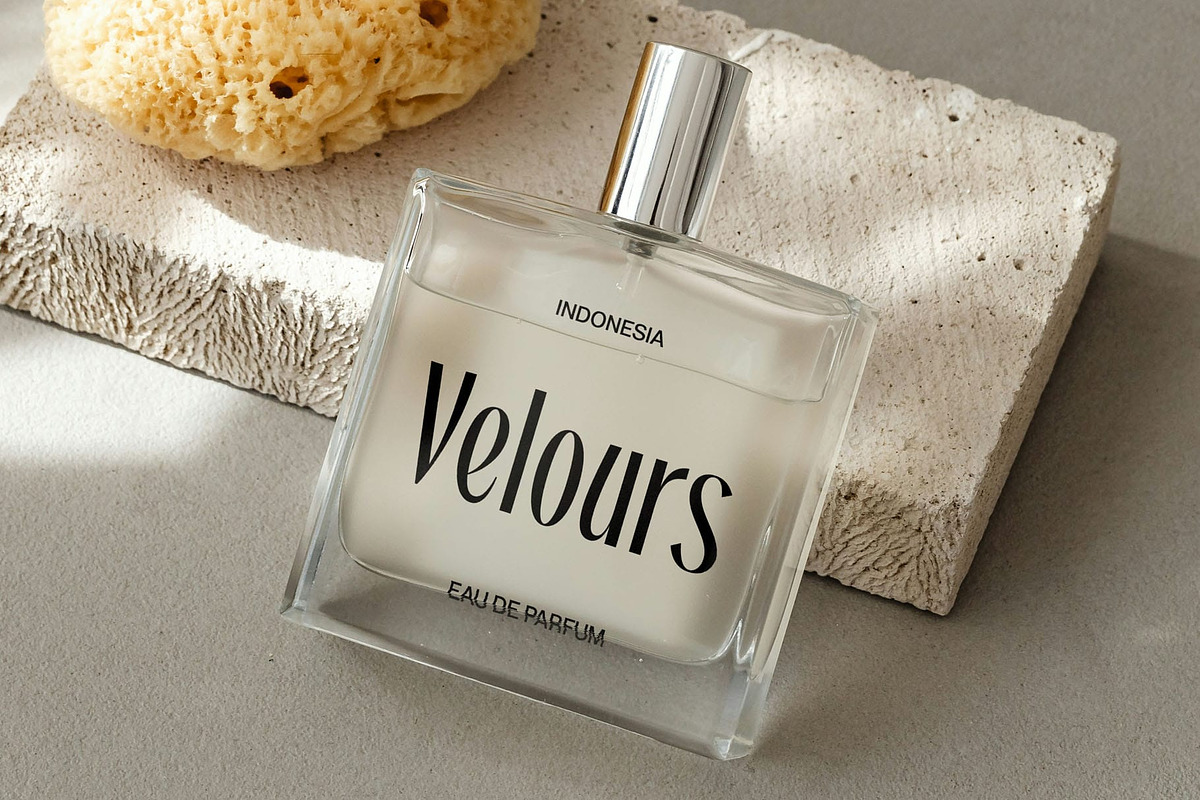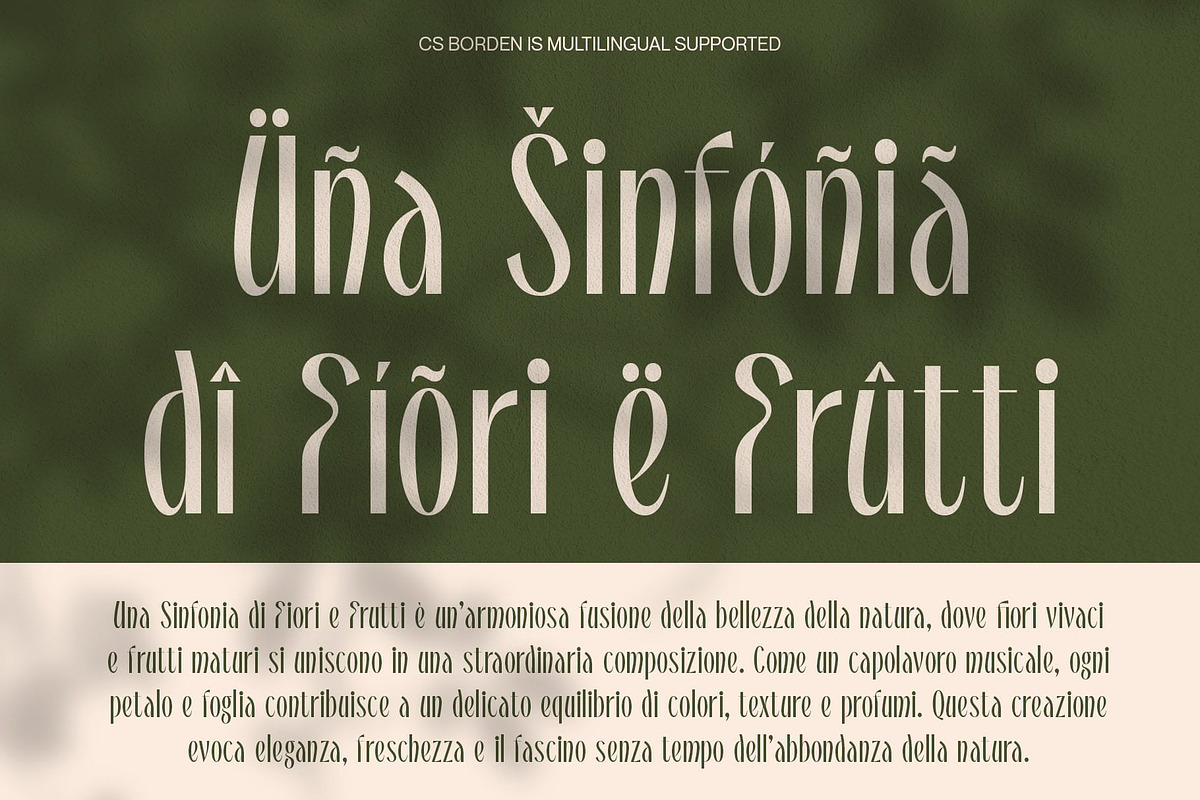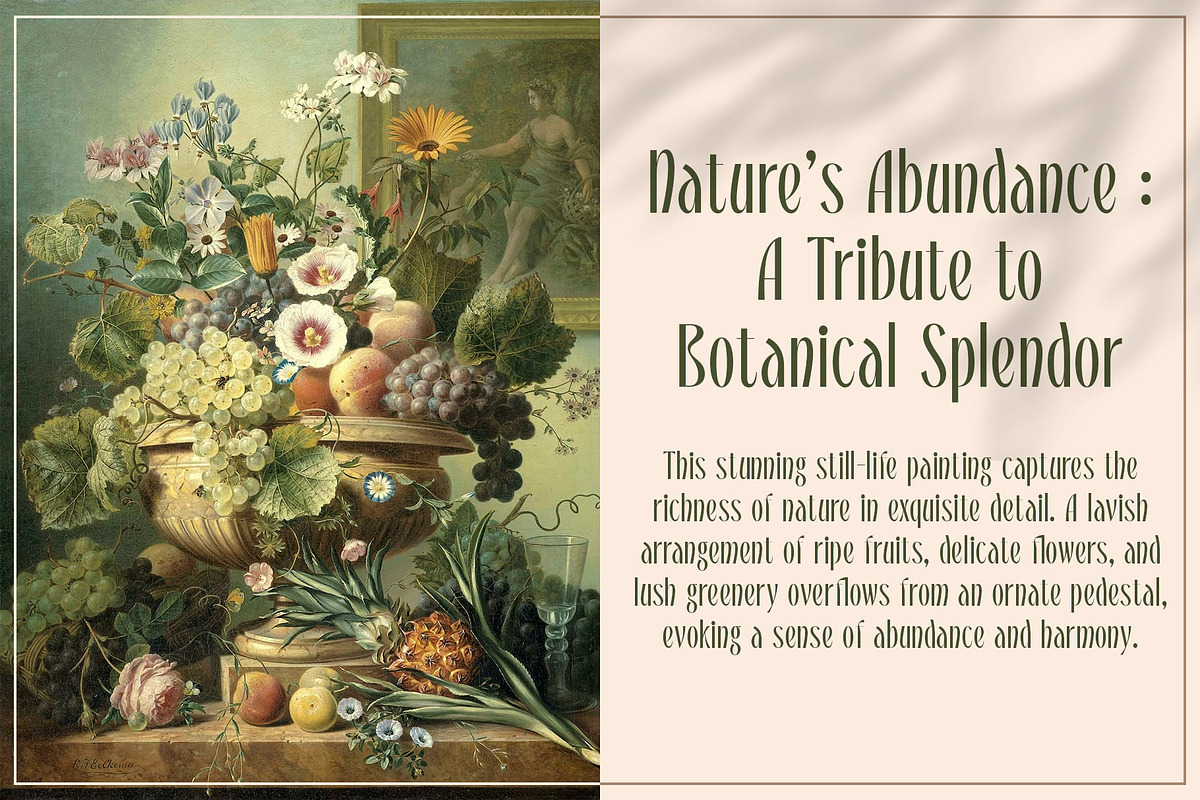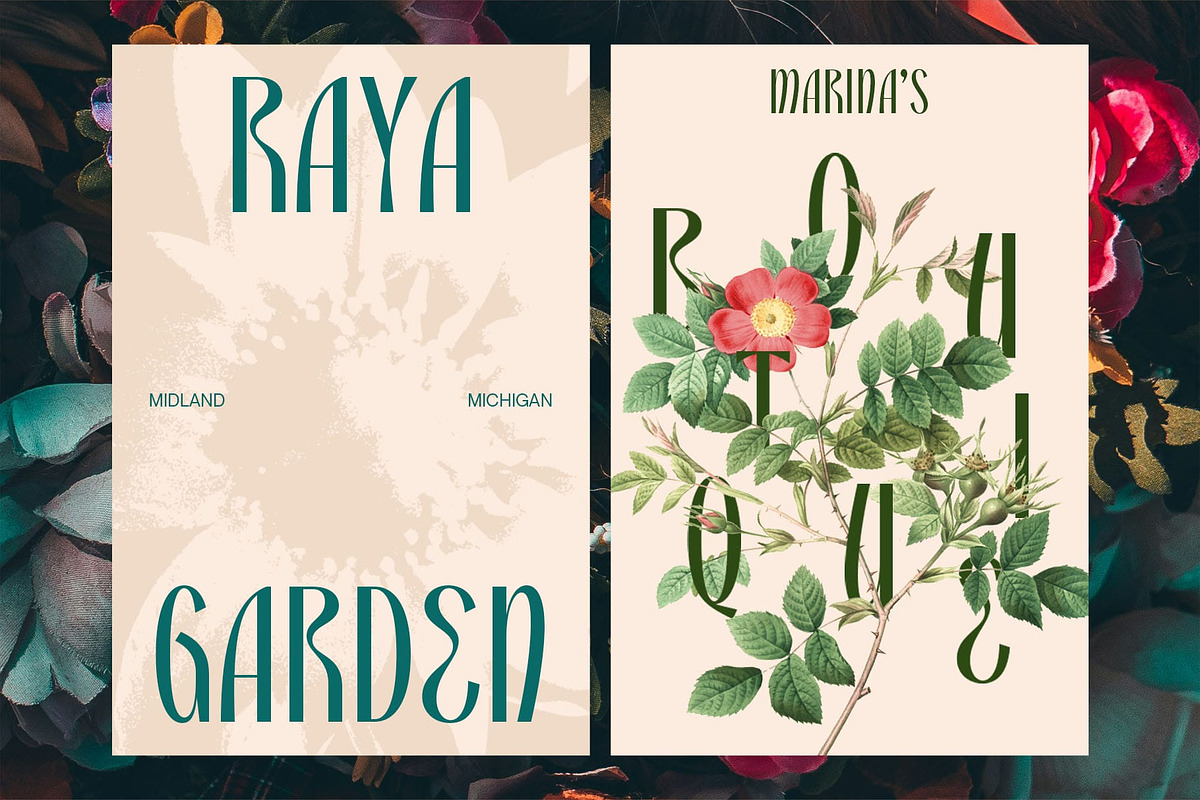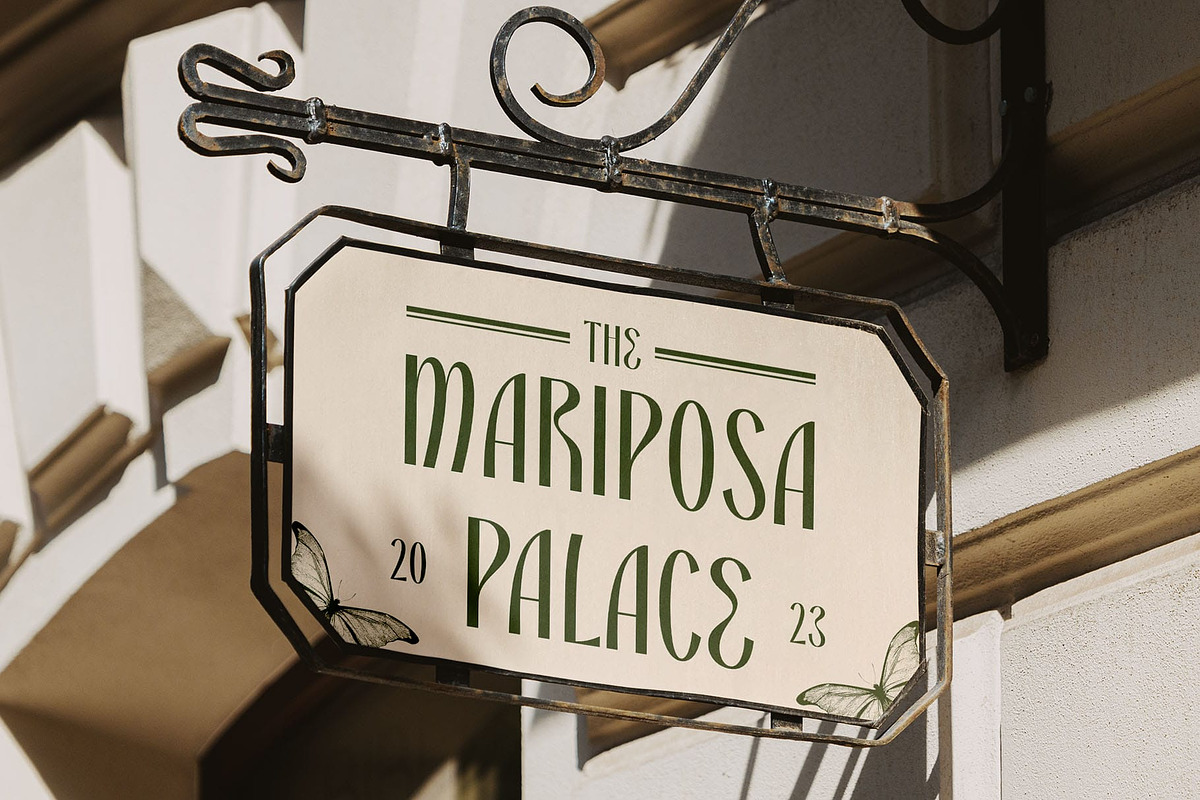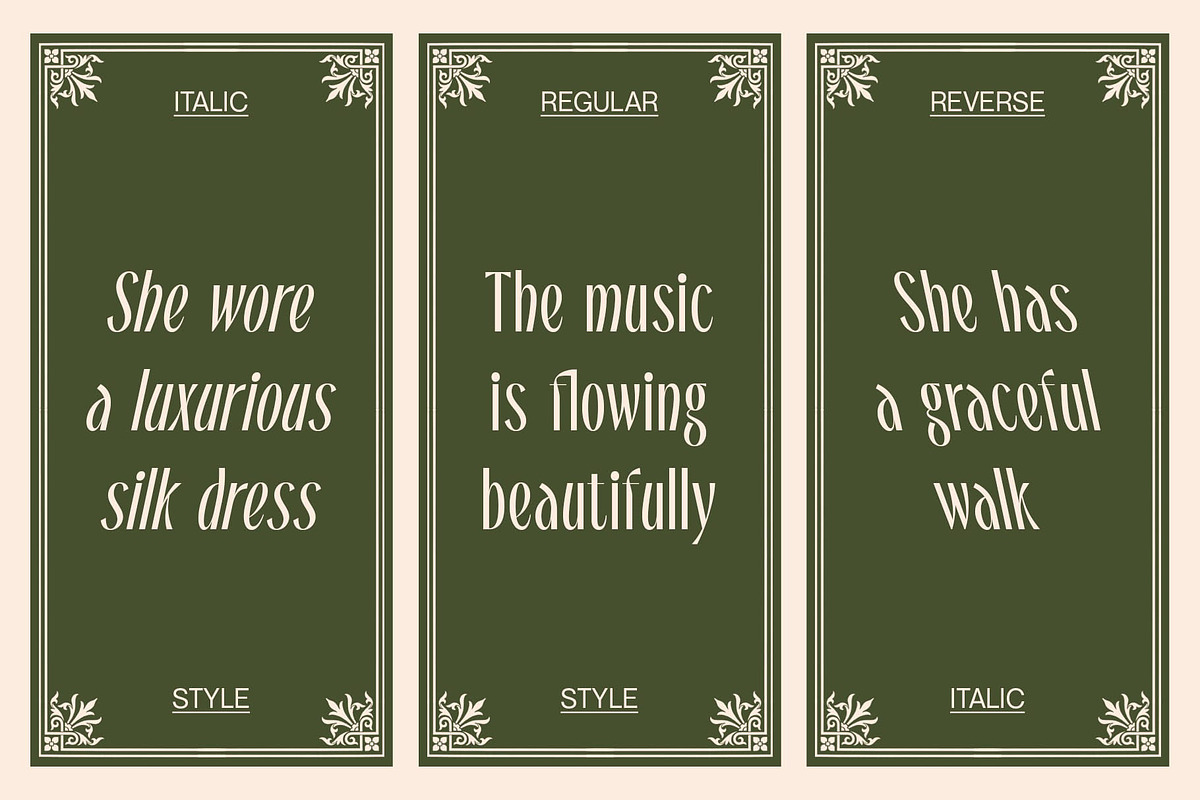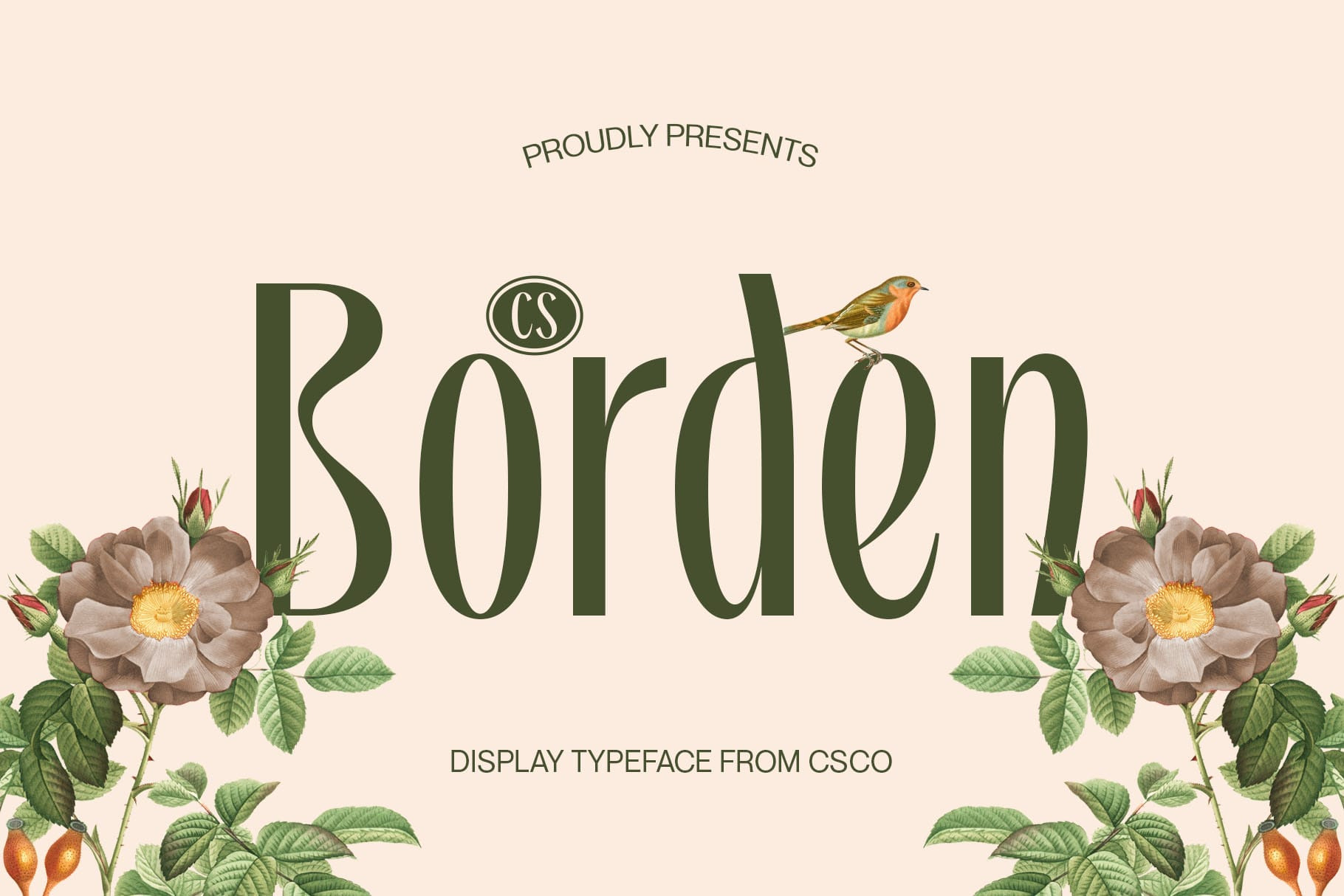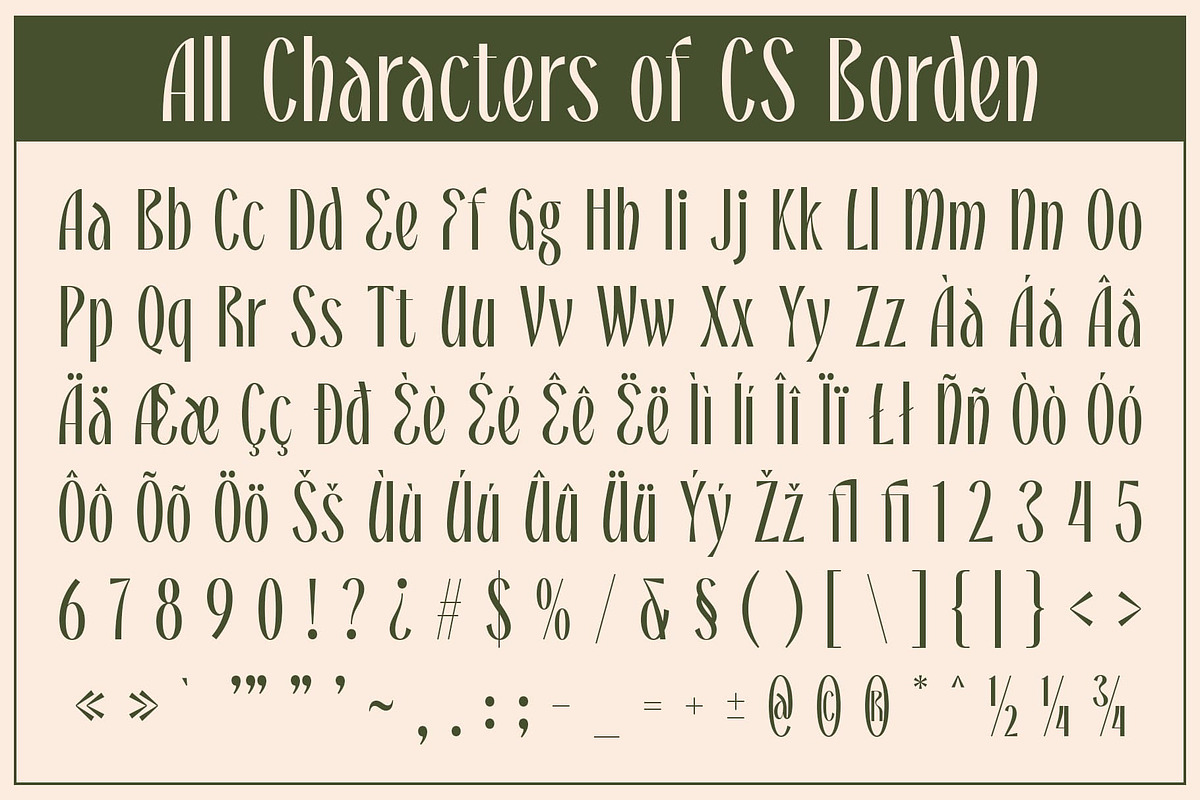
CS Borden – Elegant Font
CS Borden – Elegant Font: A Sophisticated and Timeless Typeface
Modern Display Font with Refined Elegance CS Borden is a sleek and stylish display font designed to exude sophistication, luxury, and modern charm. With its tall, slim letterforms, refined contrast, and delicate details, this font adds a touch of grace and exclusivity to any design.
Smooth Curves and Contemporary Aesthetic The font’s smooth curves and precise proportions create a harmonious balance between modern minimalism and classic elegance. Whether used in high-end branding, editorial layouts, or premium product packaging, CS Borden ensures a captivating and polished visual appeal.
Ideal for Luxury and High-Fashion Designs CS Borden is the perfect choice for luxury branding, high-fashion magazines, wedding invitations, and elegant product designs. Its refined structure and graceful presence make it ideal for projects that require a sophisticated and upscale look.
Timeless Beauty for Digital and Print Media Designed with versatility in mind, CS Borden seamlessly enhances both digital and print materials, ensuring a high-end aesthetic across various mediums. Whether crafting an exclusive logo, an elegant website, or a premium advertising campaign, this font elevates the visual experience with effortless sophistication.
- CS Borden Regular
- CS Borden Italic
- CS Borden Reverse Italic